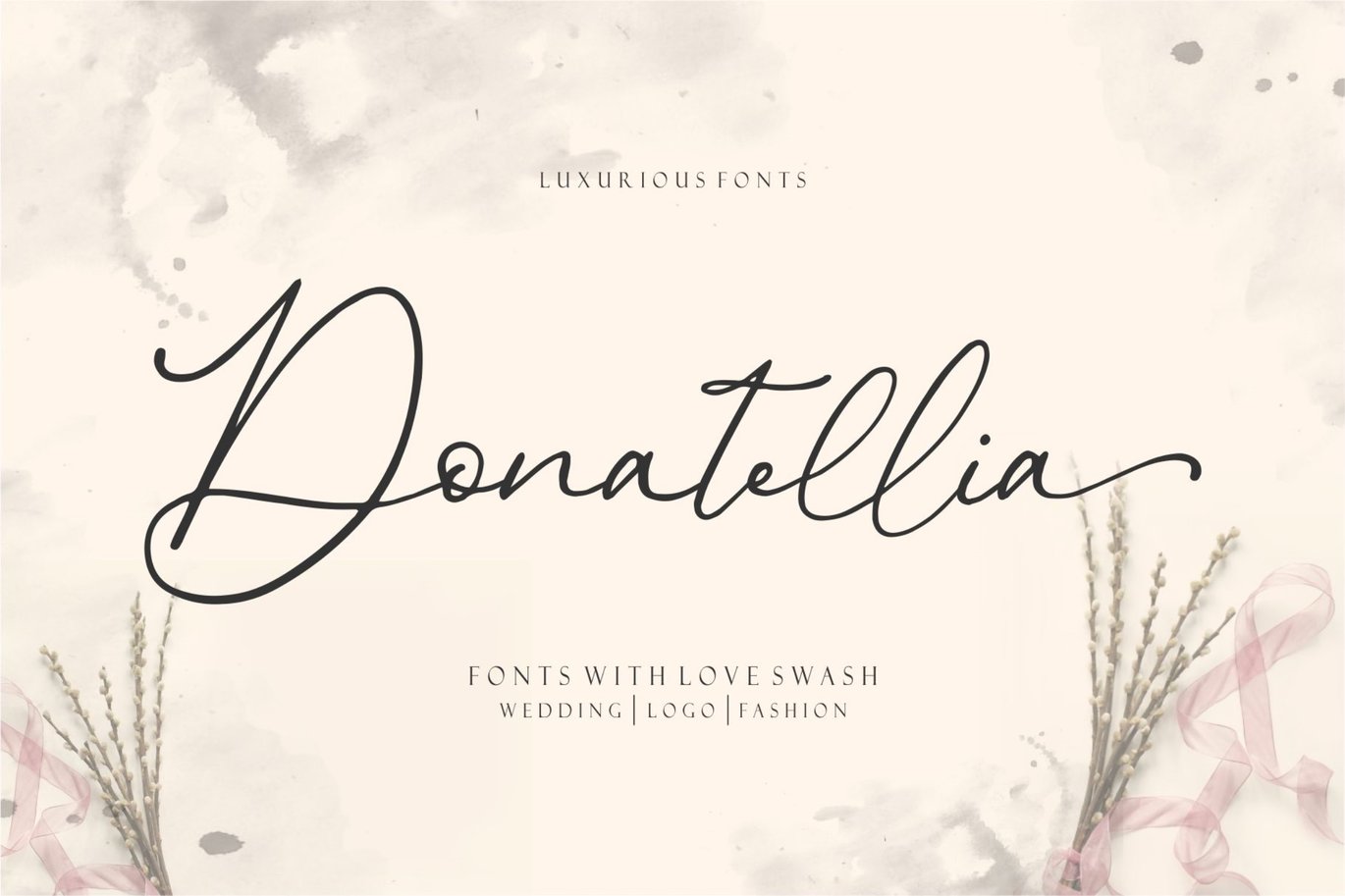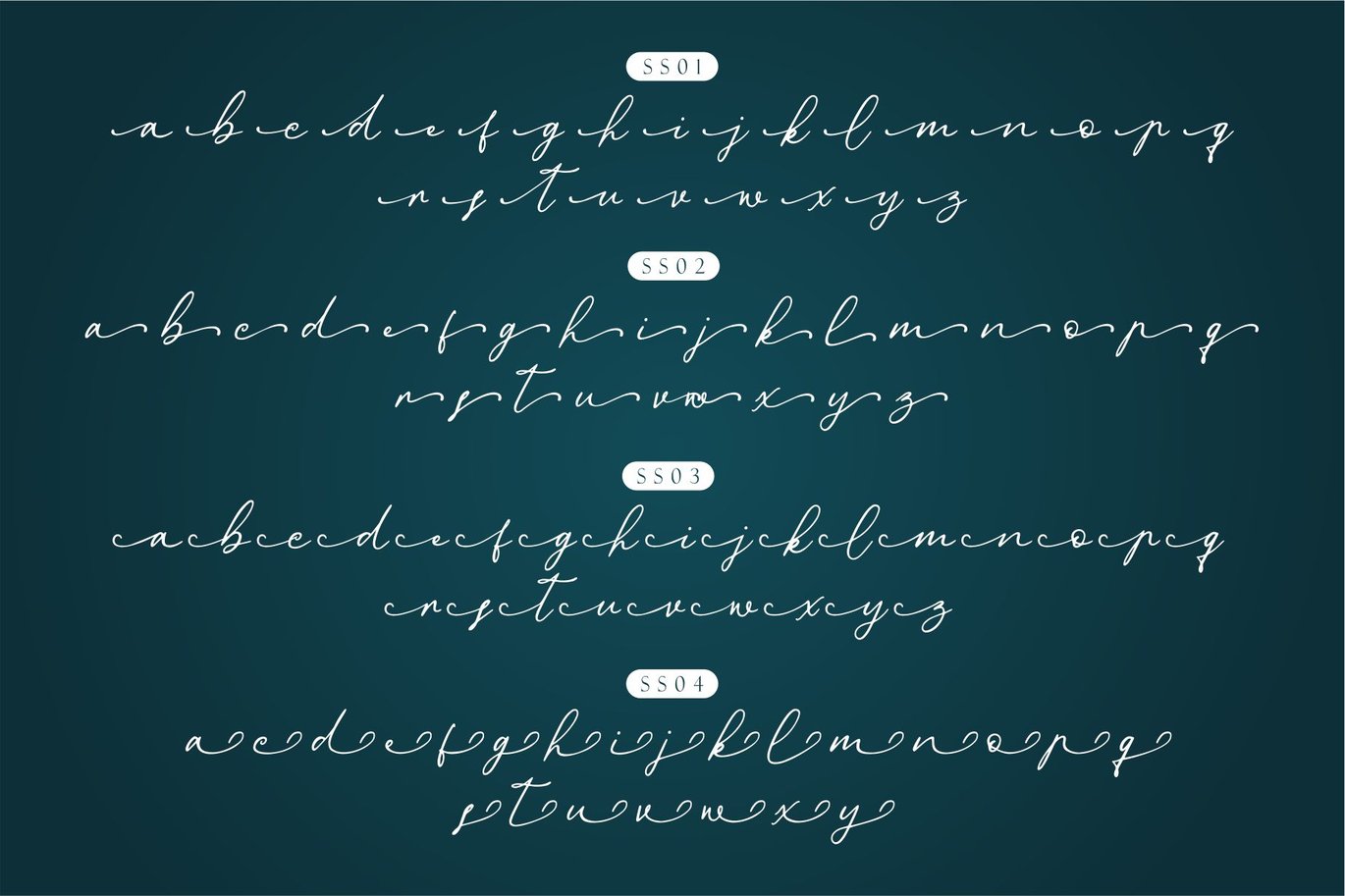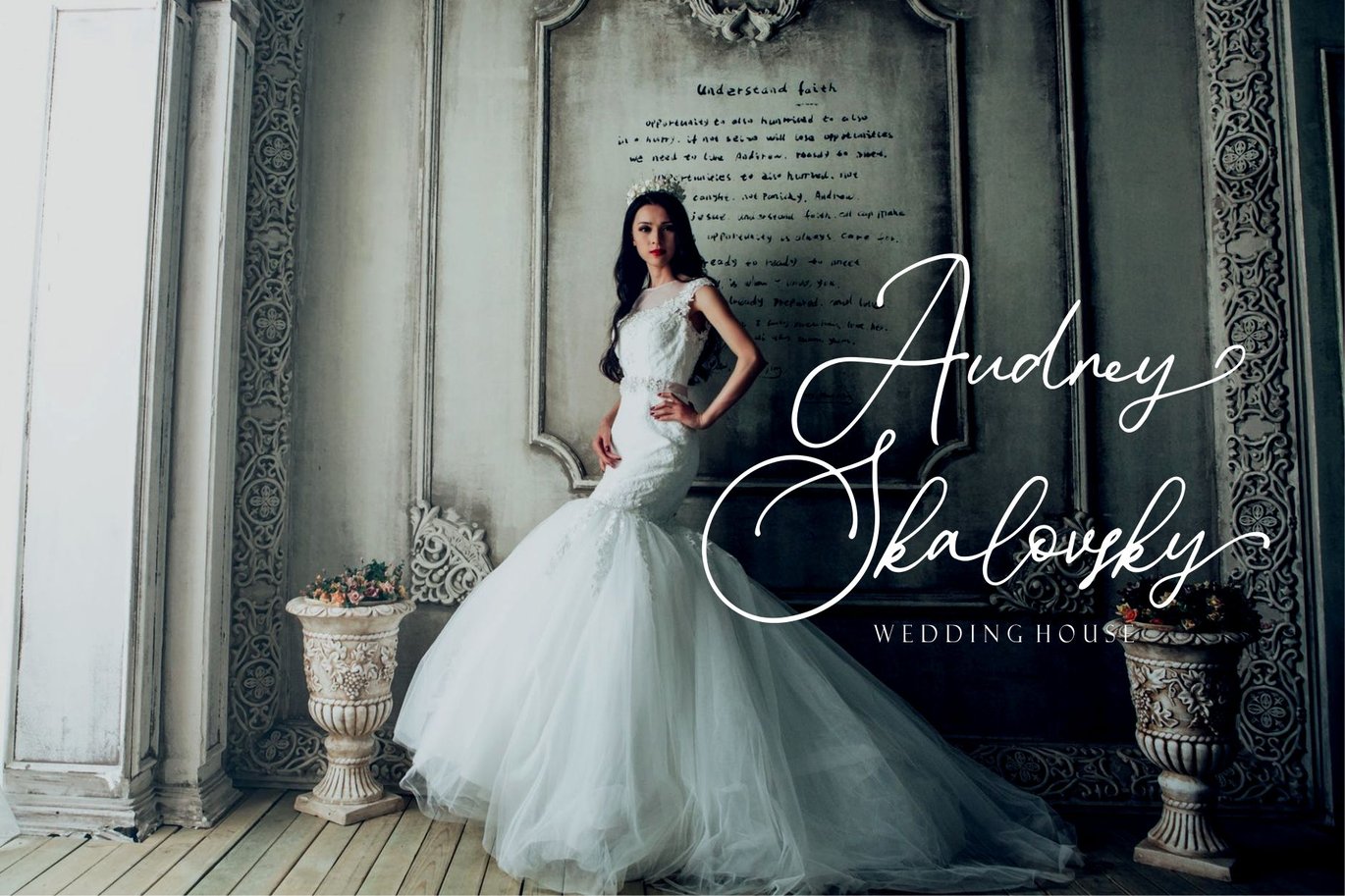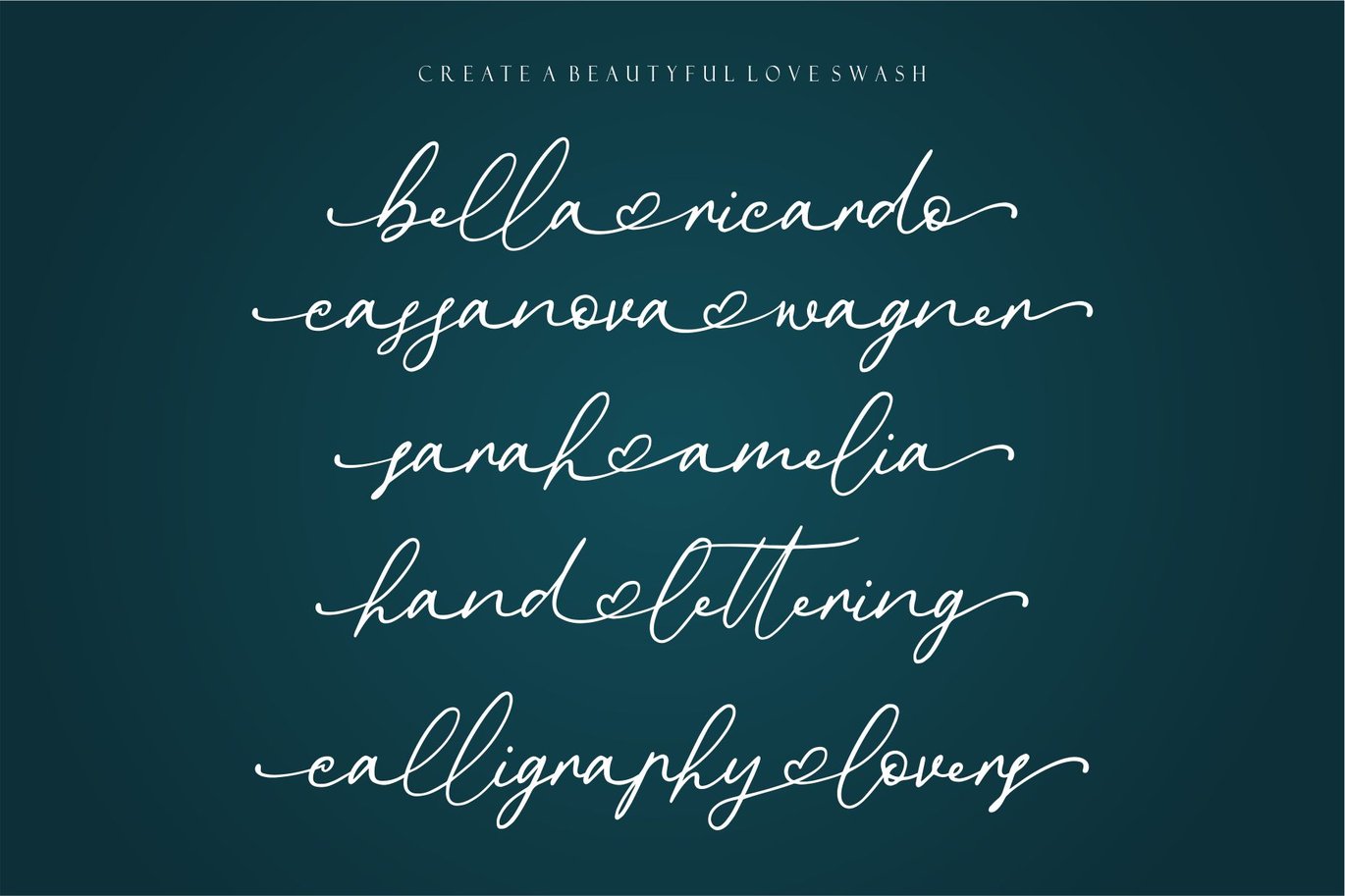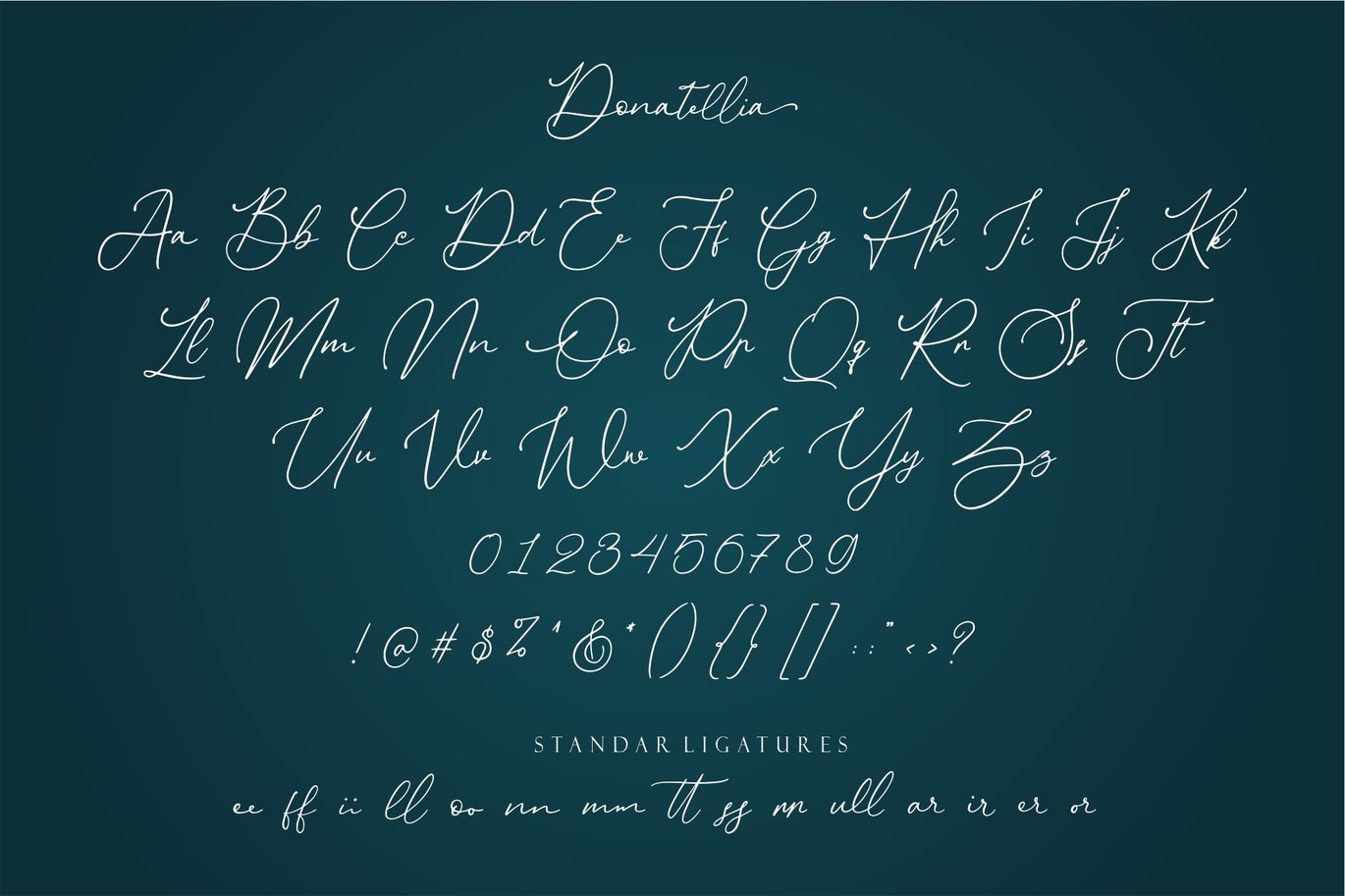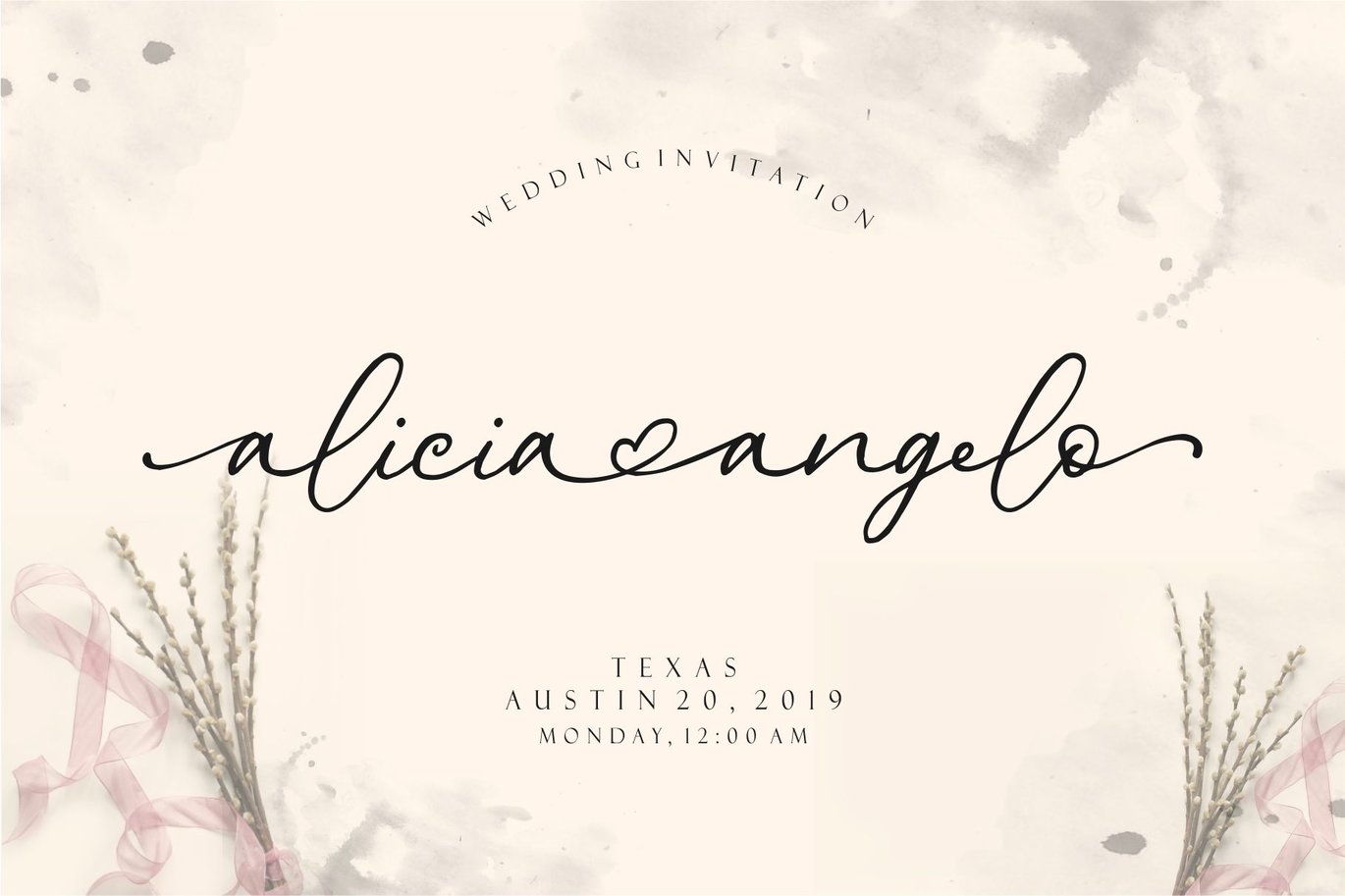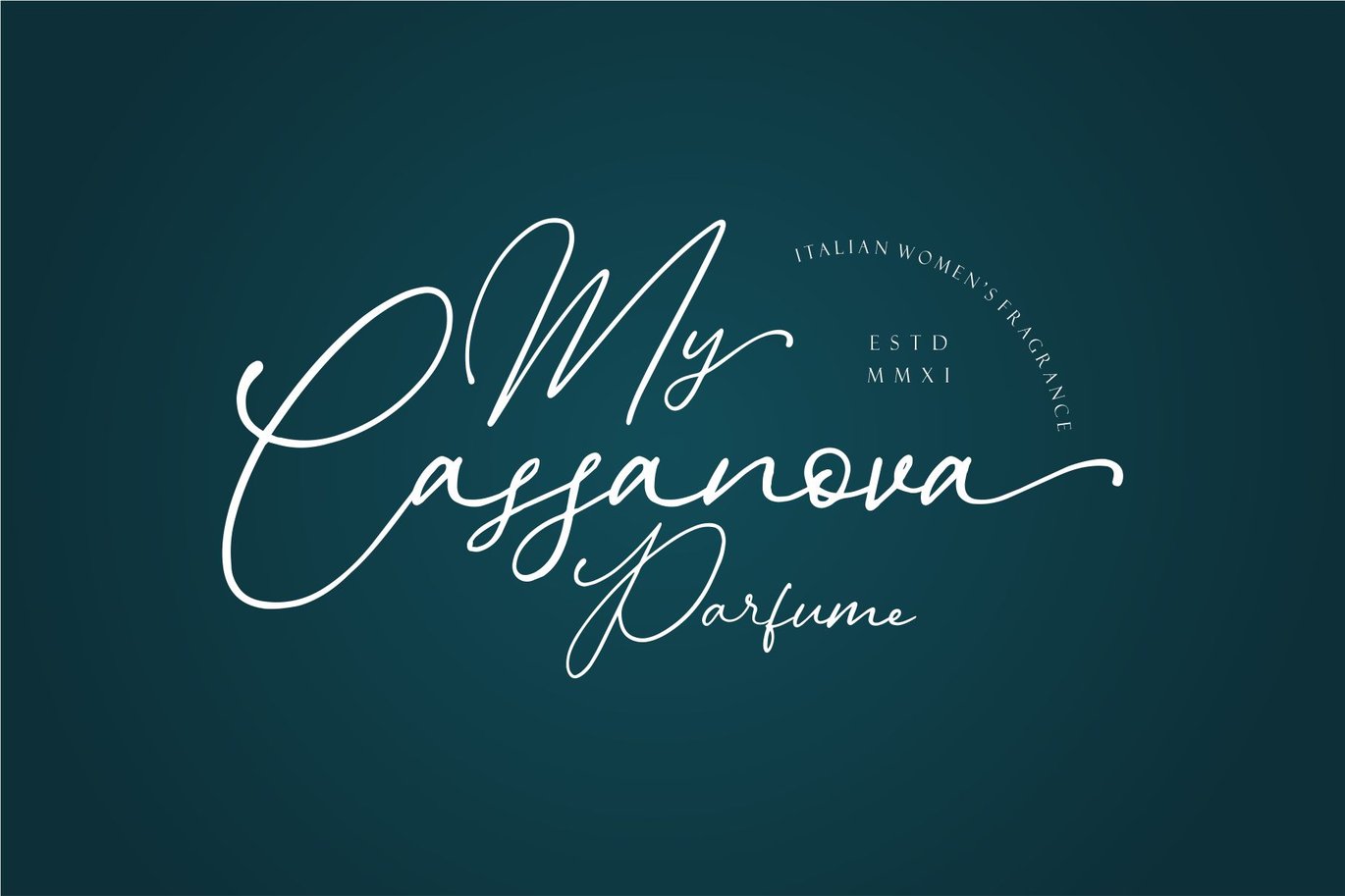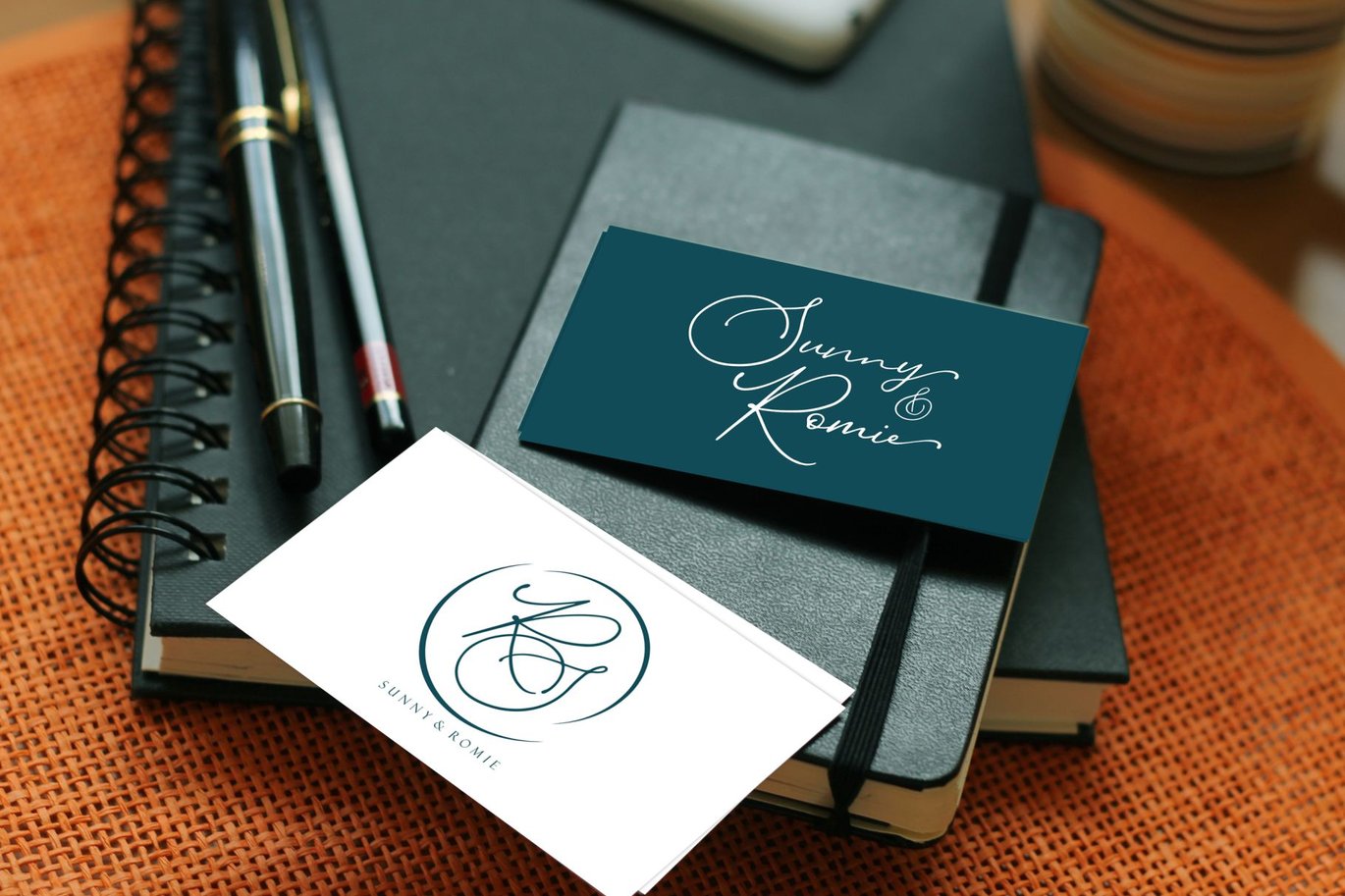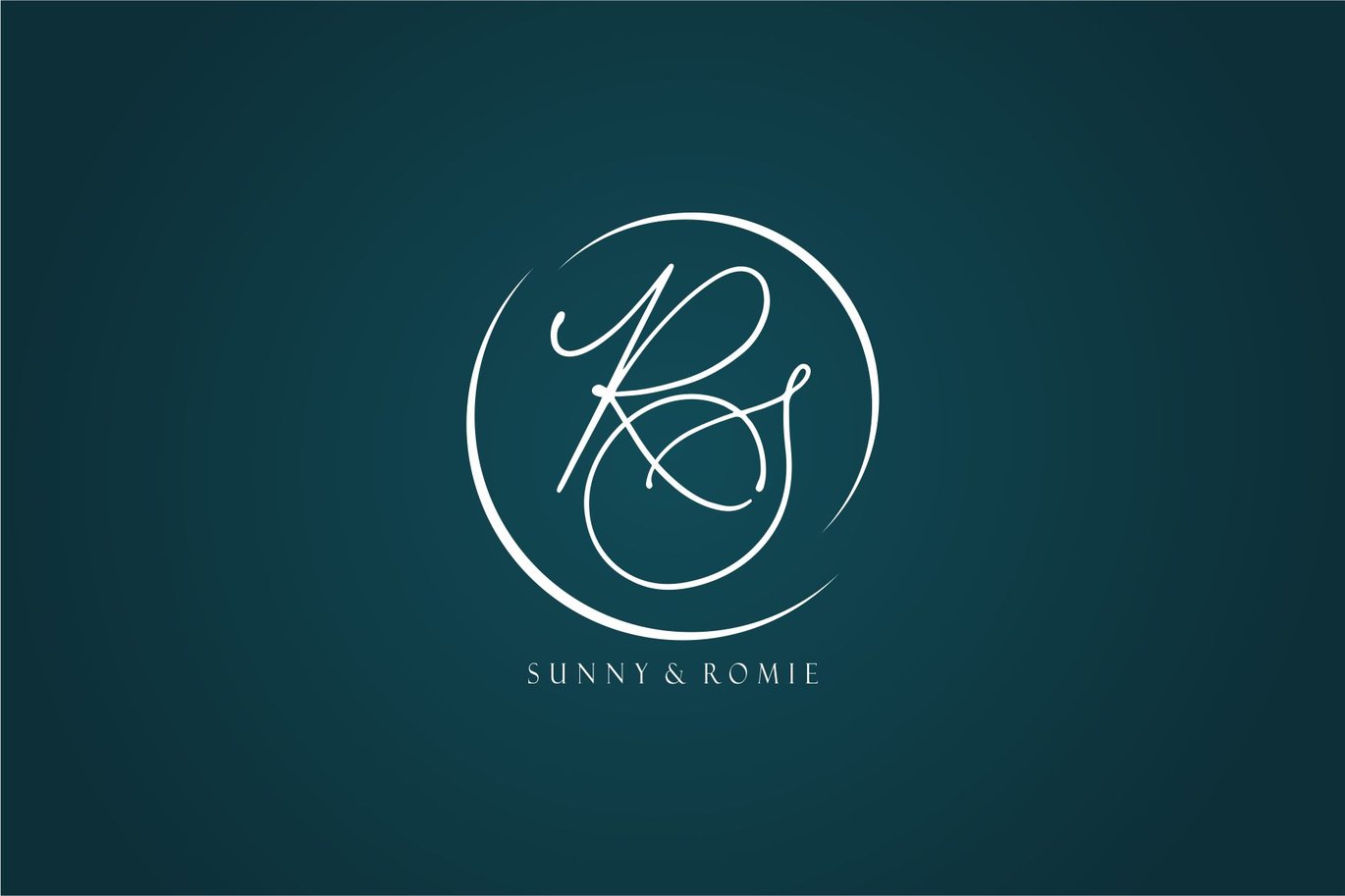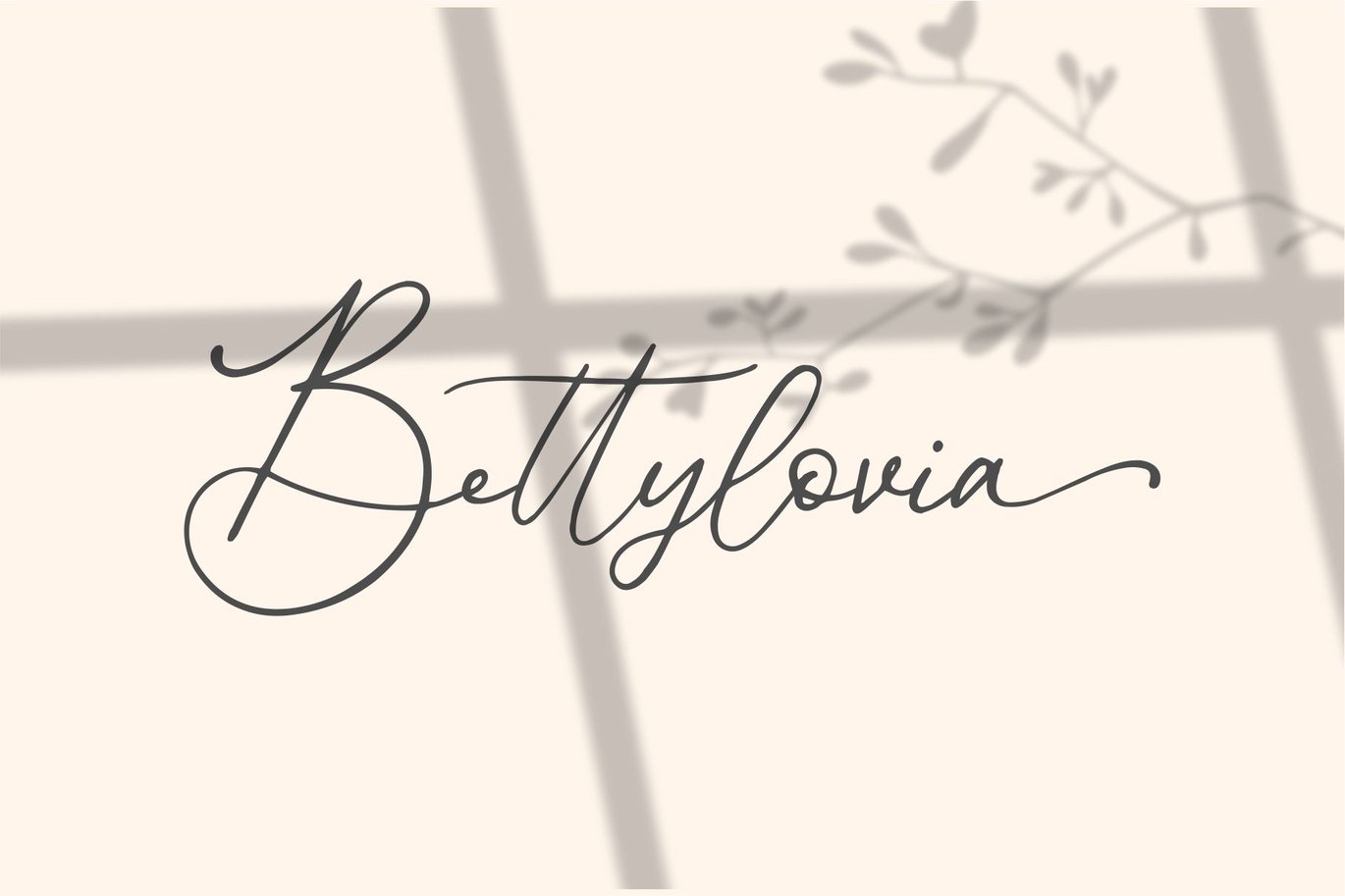
Donatellia | Calligraphy Font
Luxury fonts are Donatellia
Donatellia very perfect for logos, wedding invitations, posters, business cards, logos, headlines, Instagram stories, youtube stories, book cover, poster promotion and many more! Include OTF, TTF and WOFF files with many ligatures and OpenType features, also Stylistic Sets with end & start love swashes. Get the best love with Donatellia.
How to create a swash of love:
- Select the first letter of the first letter with Stylistic Set 03 (SS03)
- Then select the first letter of the second word with Stylistic Set 04 (SS04).
- The first word and the second word do not use spaces!
- Look at a miracle on your design.
- You can see the results in preview no. 11
Other Features Donatellia: